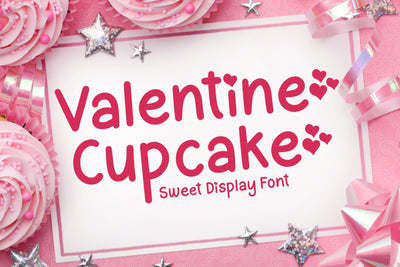
Valentine Cupcake
Valentine Cupcake is a sweet and cute handwritten font. This gentle font will look gorgeous on a variety of design ideas. Use it for making birthday cards, social media posts, packaging and logo of your product, t-shirt design, kids stuff, promotion stuff, and much more!
Valentine Cupcake Features :
- (a-z) titling, (a-z) swashes, ligatures
- Support multilingual; ä ö ü Ä Ö Ü ß ¿ ¡